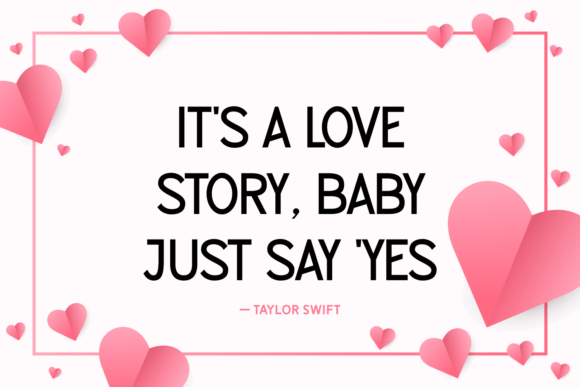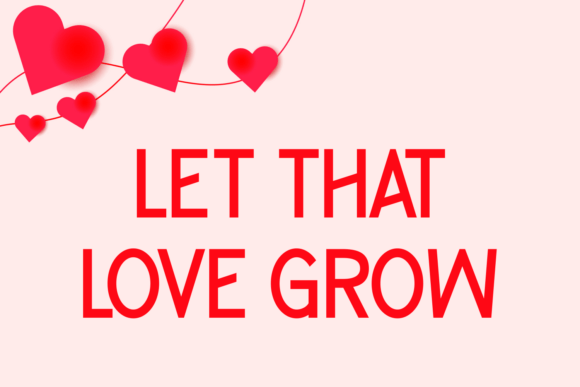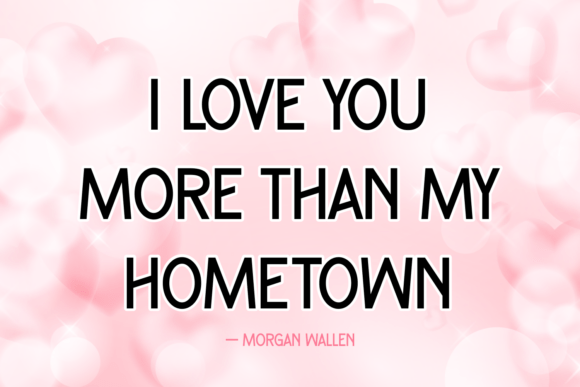
Introduction to Paint My Love Font
β€œPaint My Love” is a bold and assertive sans serif font.
Why Choose Paint My Love Font?
Paint My Love Font offers exceptional quality and versatility, making it a valuable addition to your design toolkit. Whether you’re creating for personal projects or commercial use, Paint My Love Font delivers professional results.